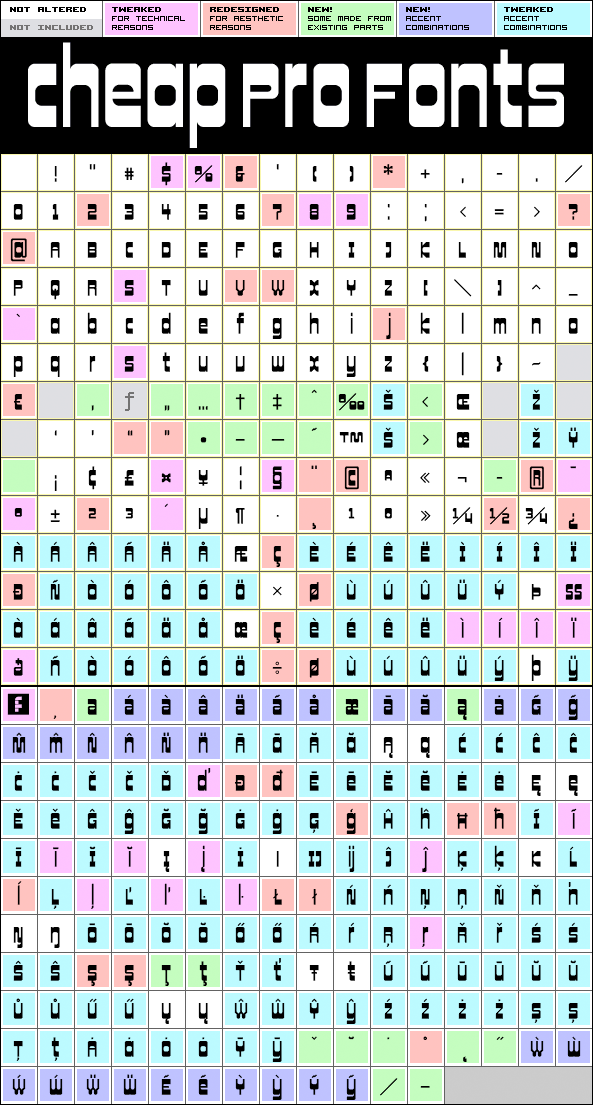
Cowboy Hippie Pro
Cowboy Hippie Pro by Roger S. Nelsson
388 glyphs!
(330 in original)
46 class kernpairs
= 1201 kerning pairs
(none in original)
OpenType features:
Alternate letterforms
(see "images" below)
Inspired by and adapted from Stretto from Canada Type - which again was inspired and expanded from Sintex by Aldo Novarese.
This font was originally made with FontStruct but this Pro version have cleaned up outlines, corrected spacing, and added kerning... Also includes an alternate "a", available via your programs' glyph palette or using the OpenType functions "Stylistic Alternates"/"ss01".
Cowboy Hippie Pro is a professionally reworked font that contains an extended character set for setting text in 65 languages requiring more than the basic A-Z!